Waist
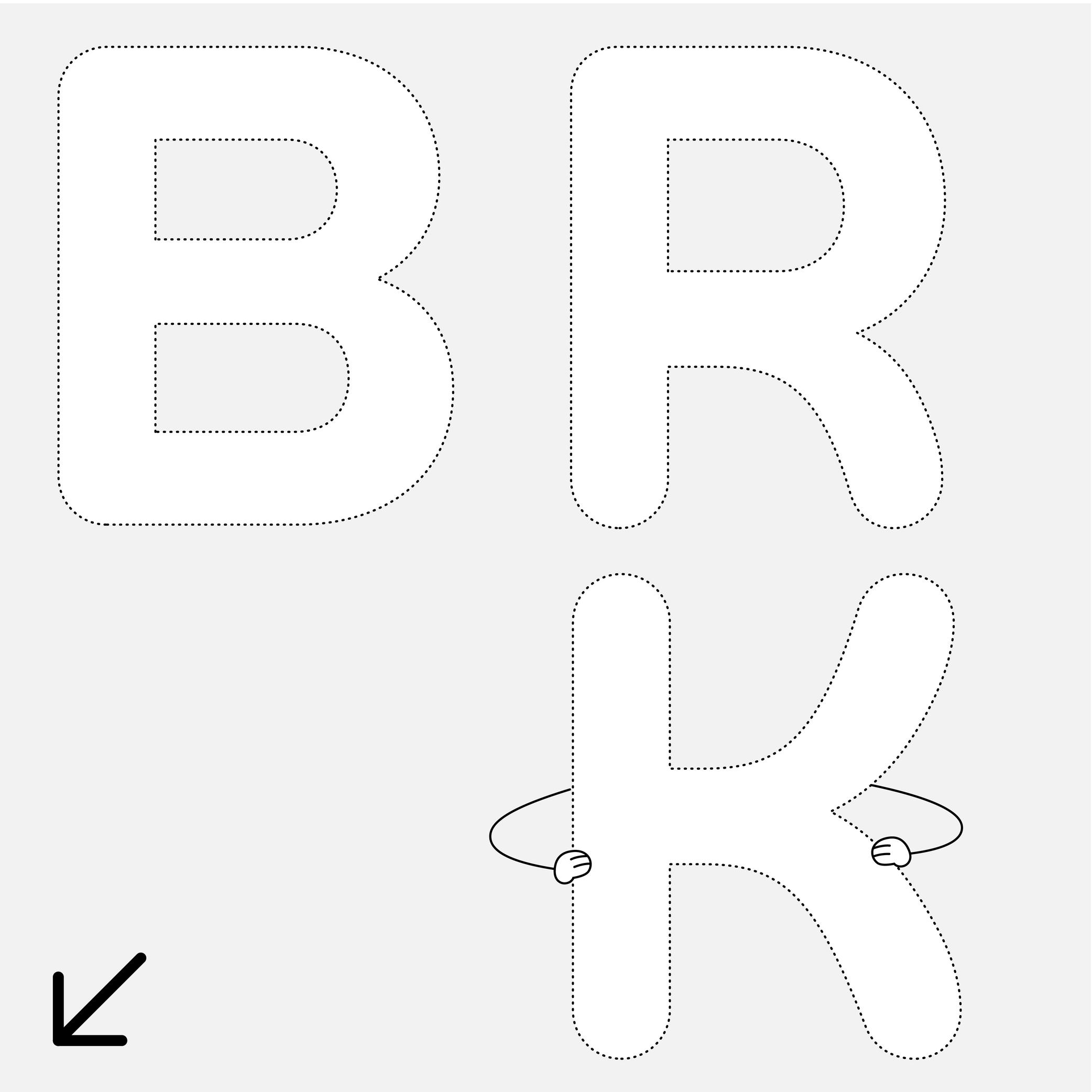
Many terms are borrowed from architecture or human and animal anatomy to designate and describe parts of letters and other characters. We even speak of type design anatomy.
In the Latin script, the waist is the middle part of letters like B or R, where the stroke’s connection shapes a narrower part.